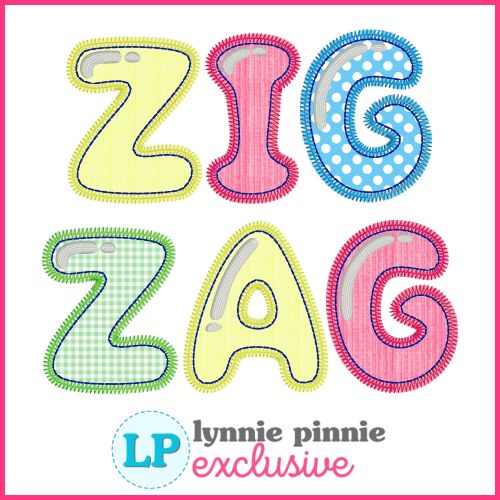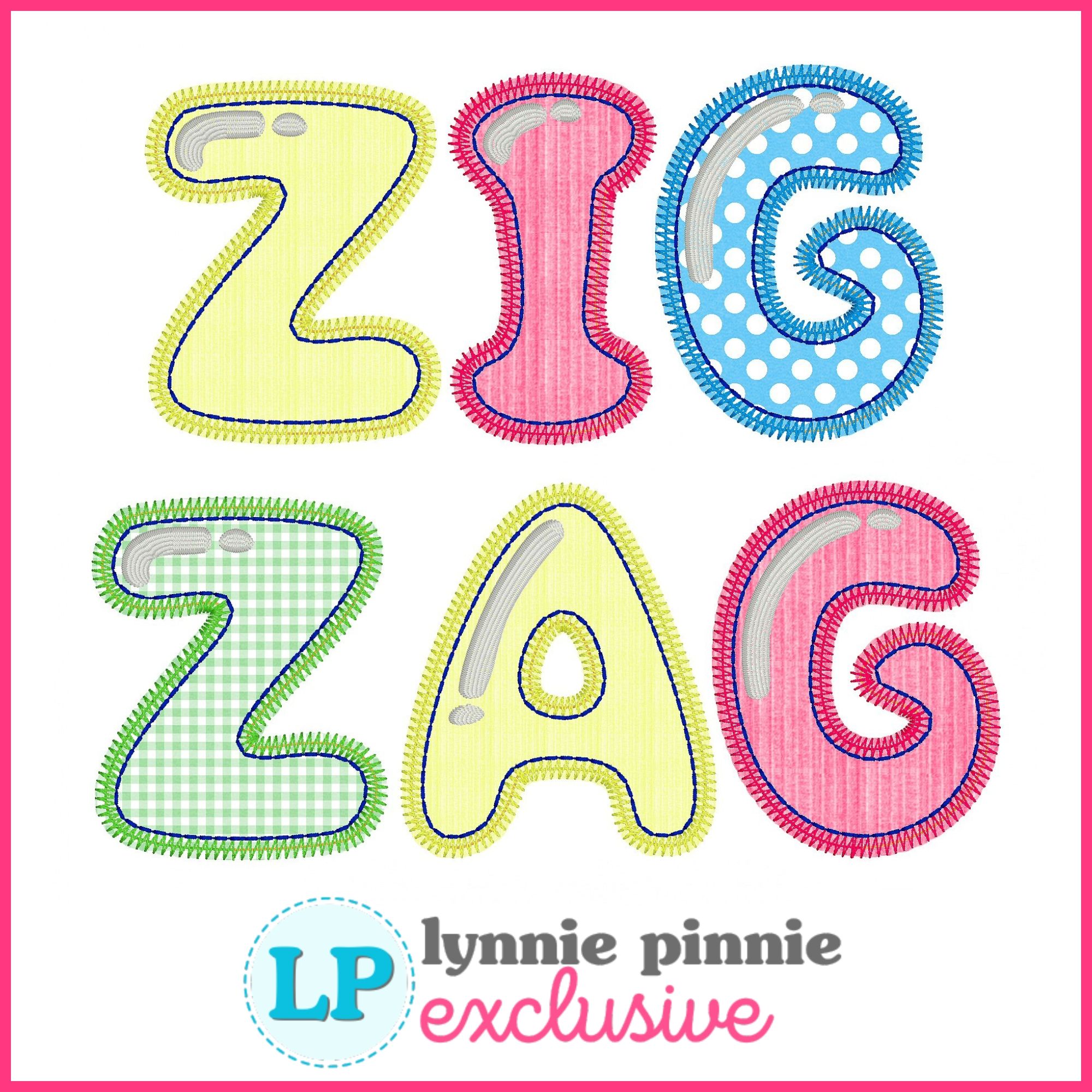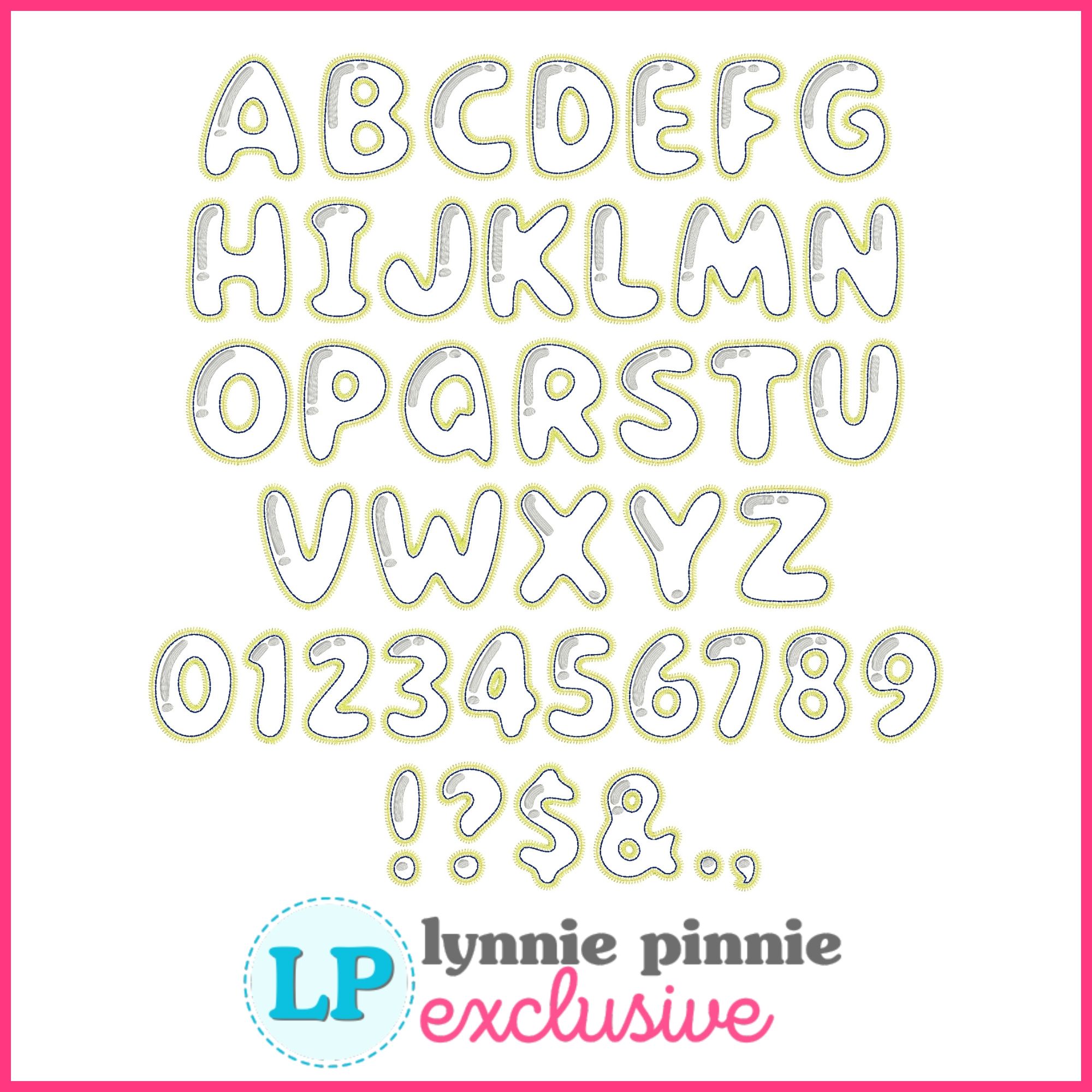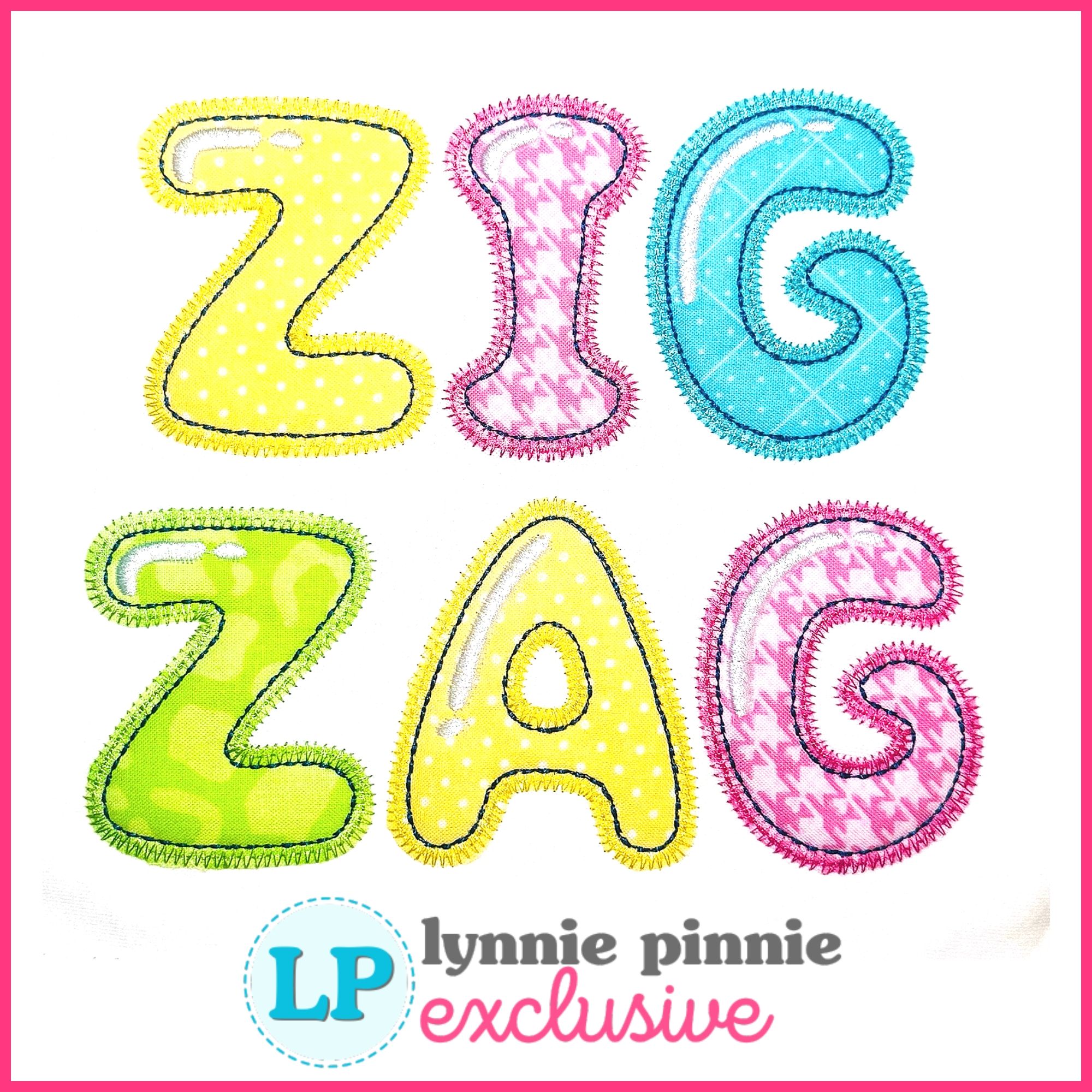
Bubble Bop Zig Zag Applique is a bold, balloon-inspired uppercase applique embroidery font featuring a quick-stitch zig zag finish, contrast outline, and reflective-style details.